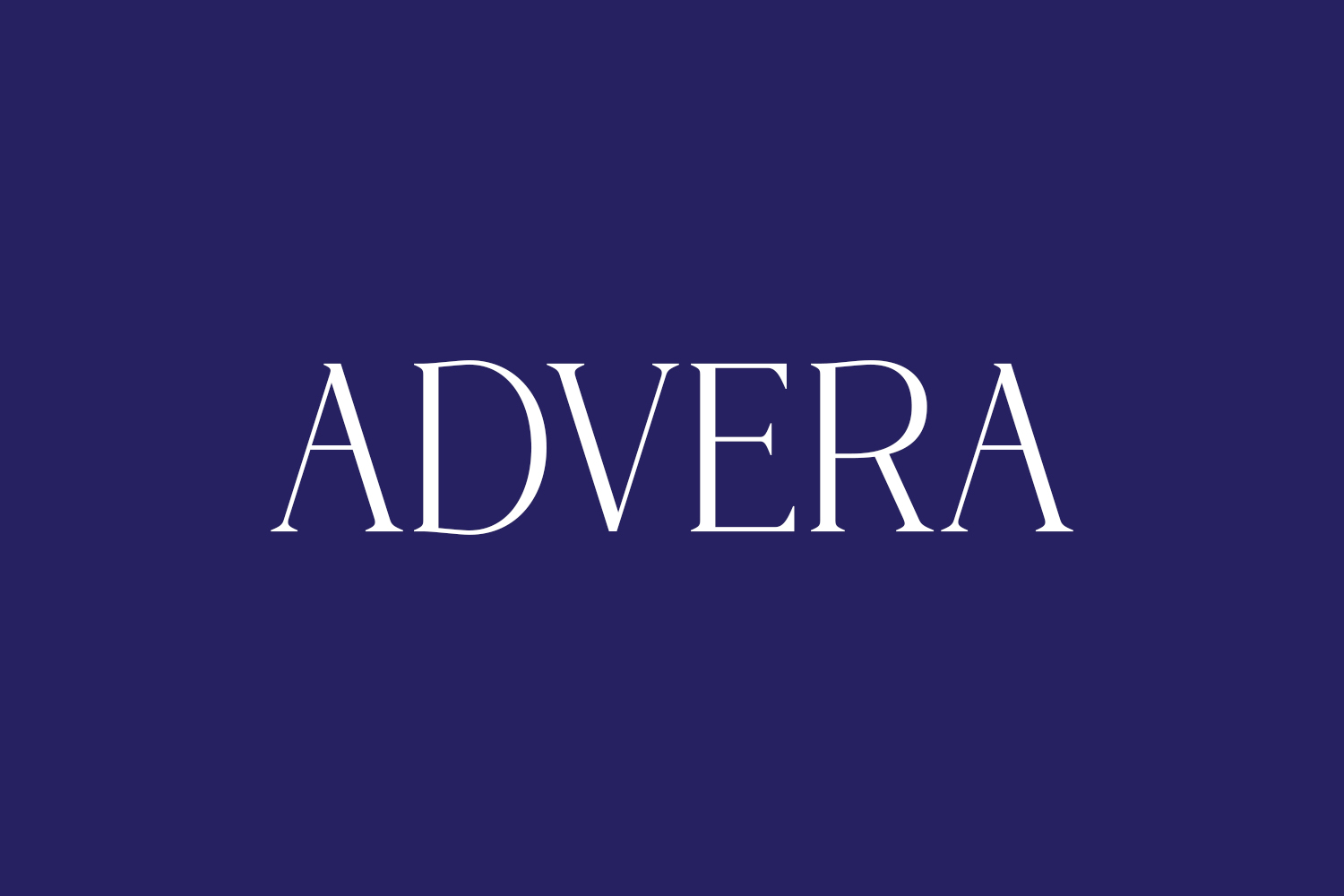
Presenting the Advera Free Font: a sophisticated blend of an elegant serif typeface and a distinctive signature script. This duo, characterized by its modern and minimalist aesthetics, offers a beautiful fusion of fonts that imparts elegance and style to your designs. Advera is the perfect choice to bring a clean and beautiful look to websites, logos, brand identities, quotes, and various design projects. Elevate your visual appeal with the Advera Font Duo, enhancing the elegance and style of every creative endeavor. Download the font for free if you need it for personal use or purchase the full version for commercial use.